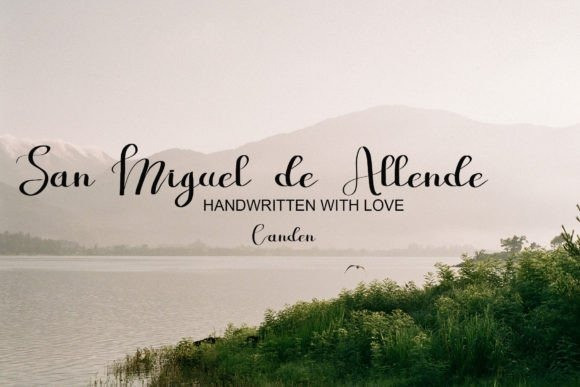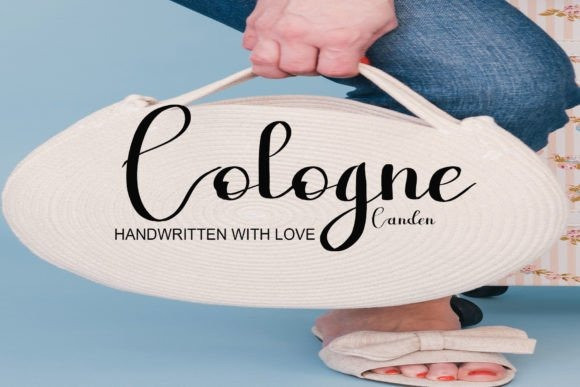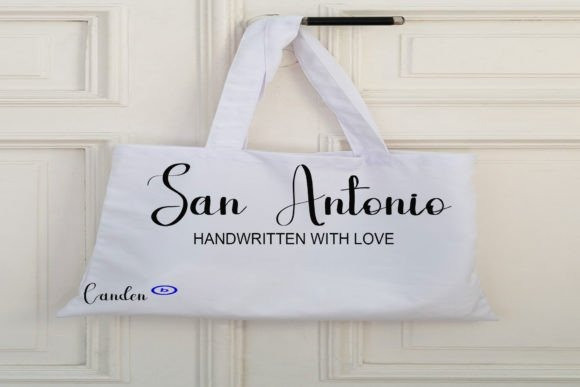
San Antonio Font
San Antonio Font is a simple and carefully crafted handwritten font perfect for websites, wedding invitations, business cards, signatures, advertisements, and many more. Add it to your fonts library, and it will make your designs cool and stylish.